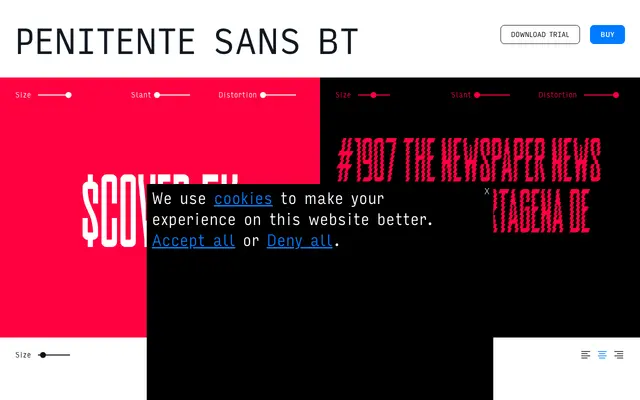
Penitente Sans BT
A display sans from Bastarda rooted in the graphic vernacular of Latin American street culture, newspapers and urban music promotion.
The specimen copy leans heavily into Colombian and Caribbean cultural references, from Cartagena newspaper printing to reggaeton lyrics and concert flyers, positioning this as a typeface built for expressive, street-level communication. The character set covers an extensive range of Latin Extended glyphs, accommodating a wide spread of European and Latin American languages. Best suited to posters, event collateral and editorial work where a strong regional voice is needed.
The page name and Bastarda's design sensibility point to a display-oriented sans with expressive, vernacular qualities rooted in Latin American graphic culture, making it a display sans rather than a neutral text face.